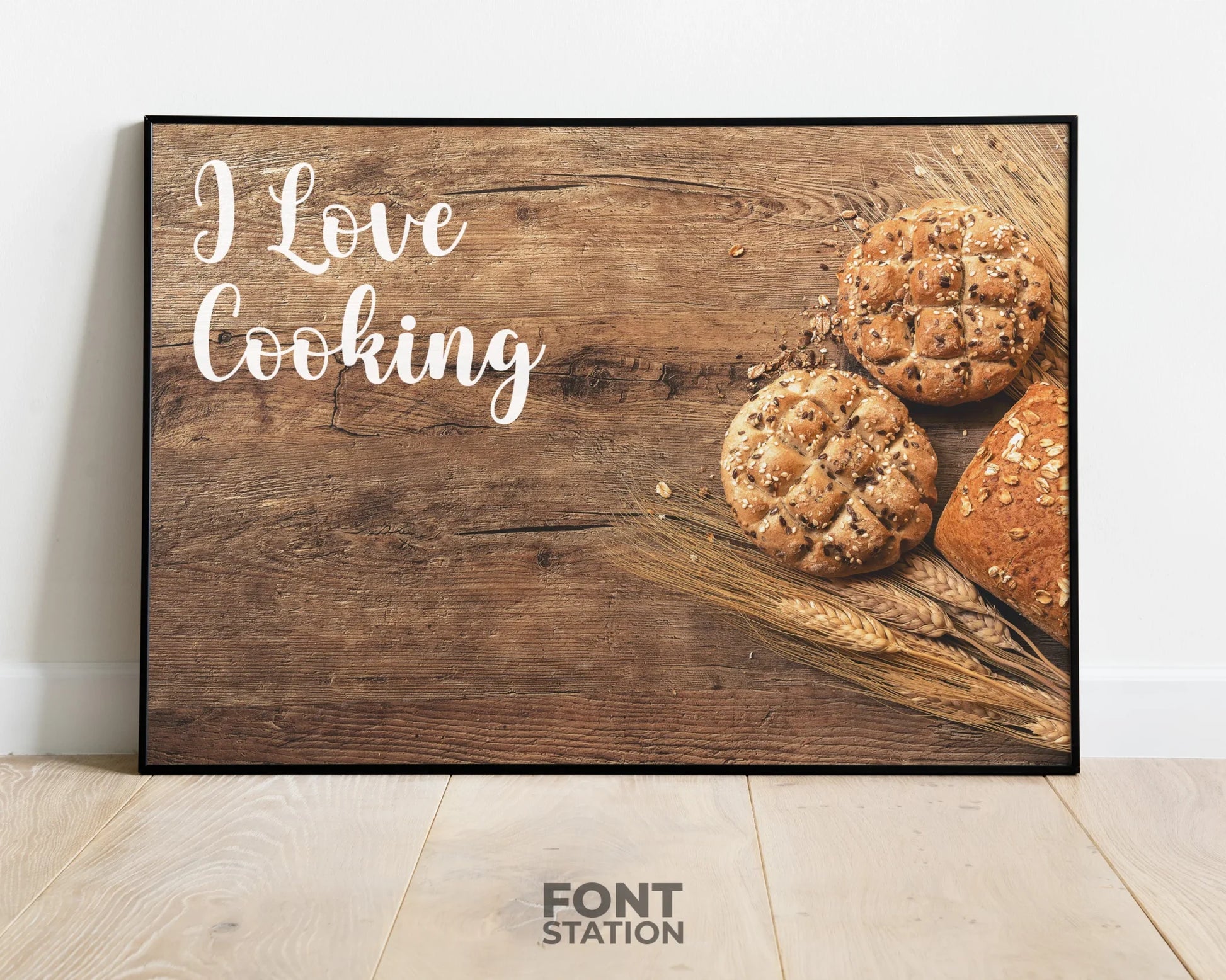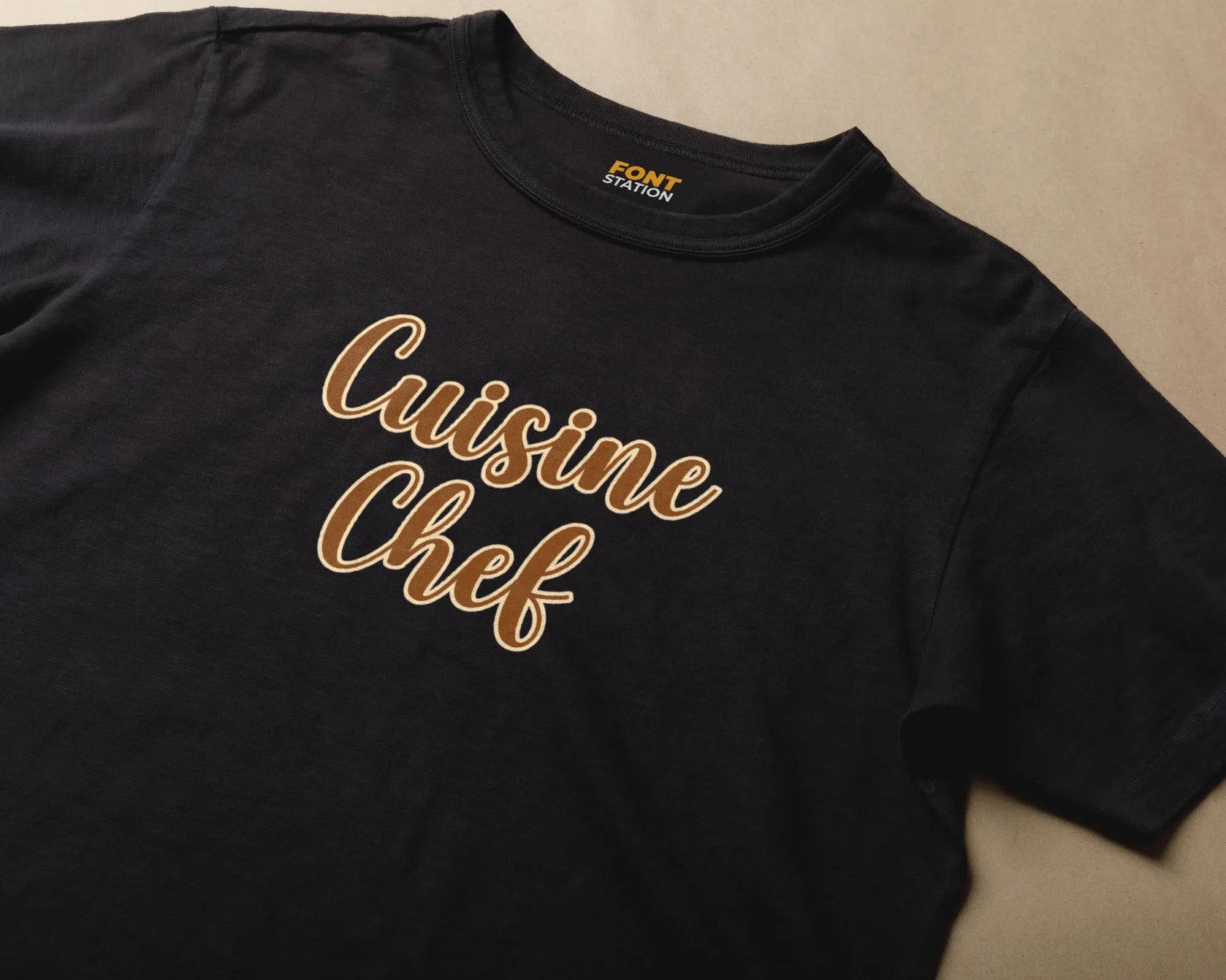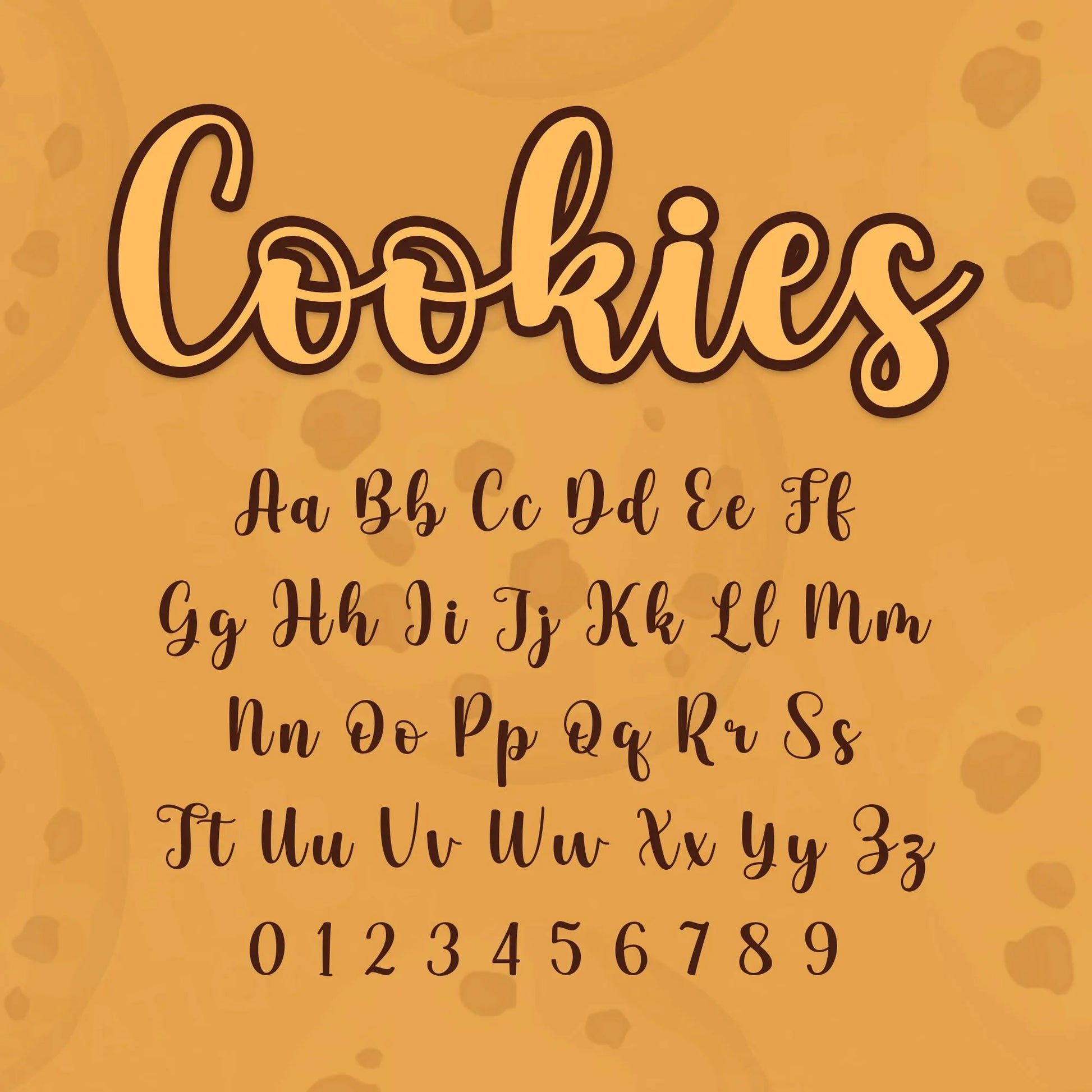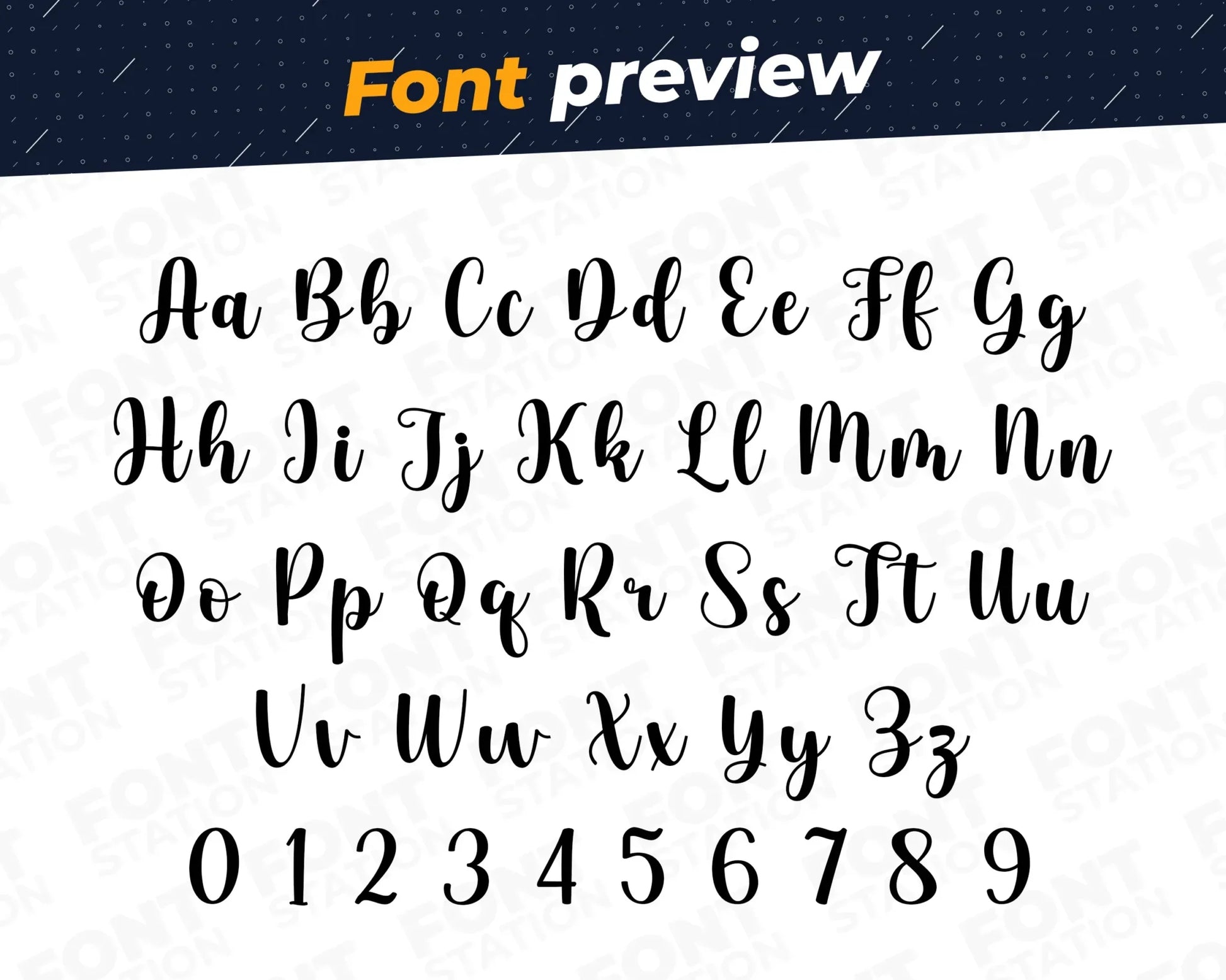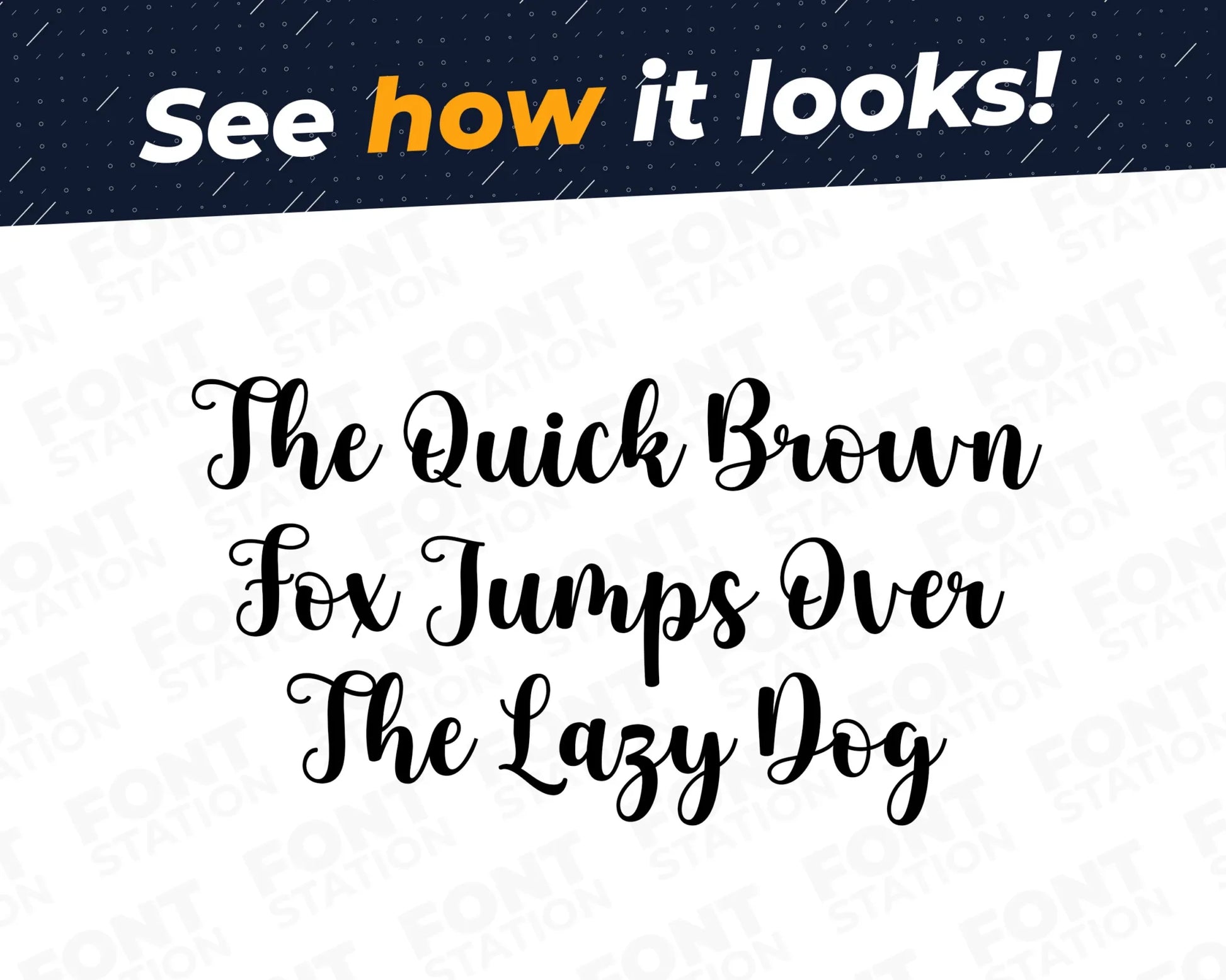
Sweet Cookies Font
Our Sweet Cookies typeface, inspired from Pastry Cooking font
Grab your computer, tablet or other device and start creating right now with our Sweet Cookies font letters! Our Sweet Cookies typography is inspired from Pastry Cooking font, making it ideal for various digital creations (logo, word...), sublimation, cake toppers, stickers, event decorations, and more.